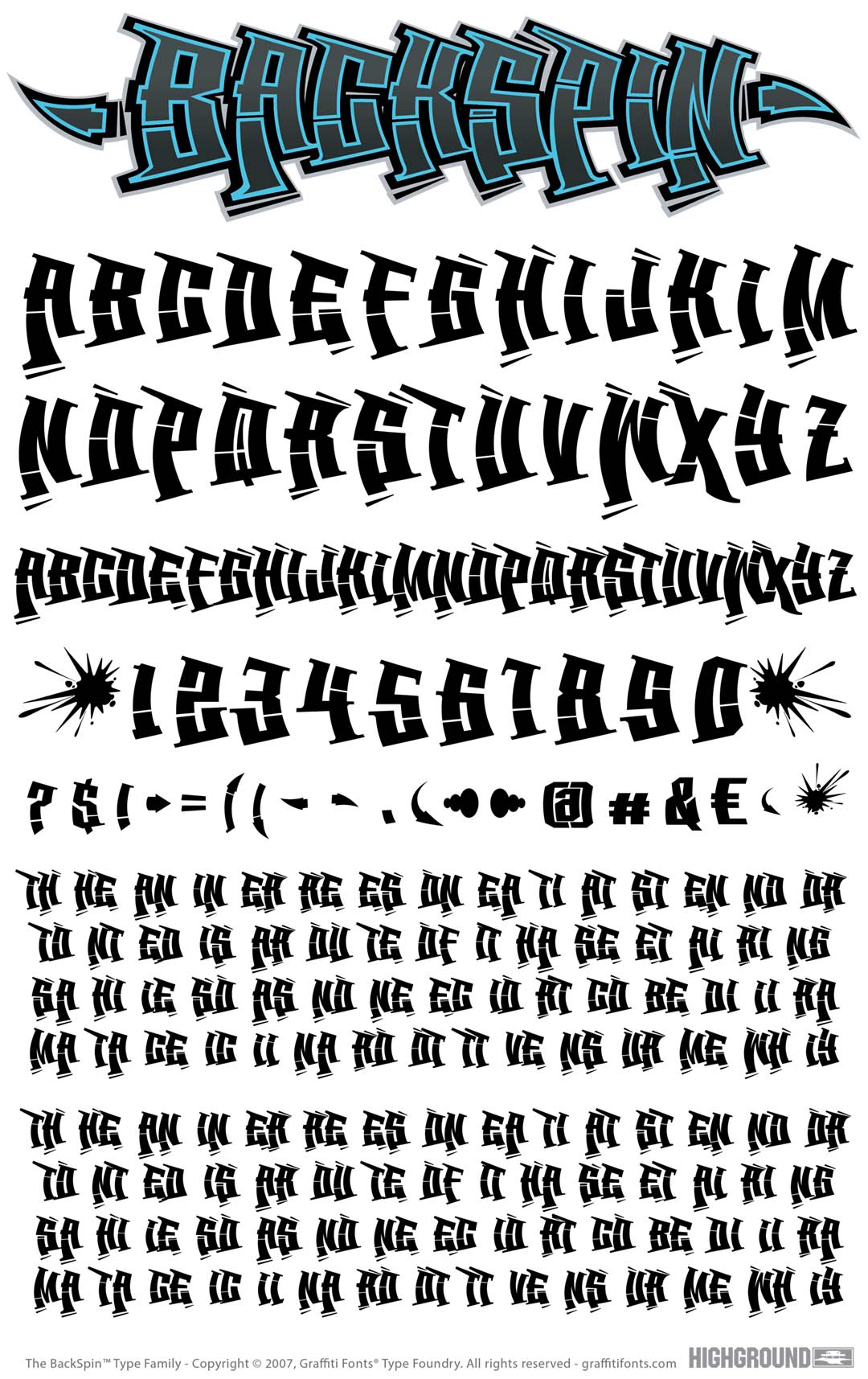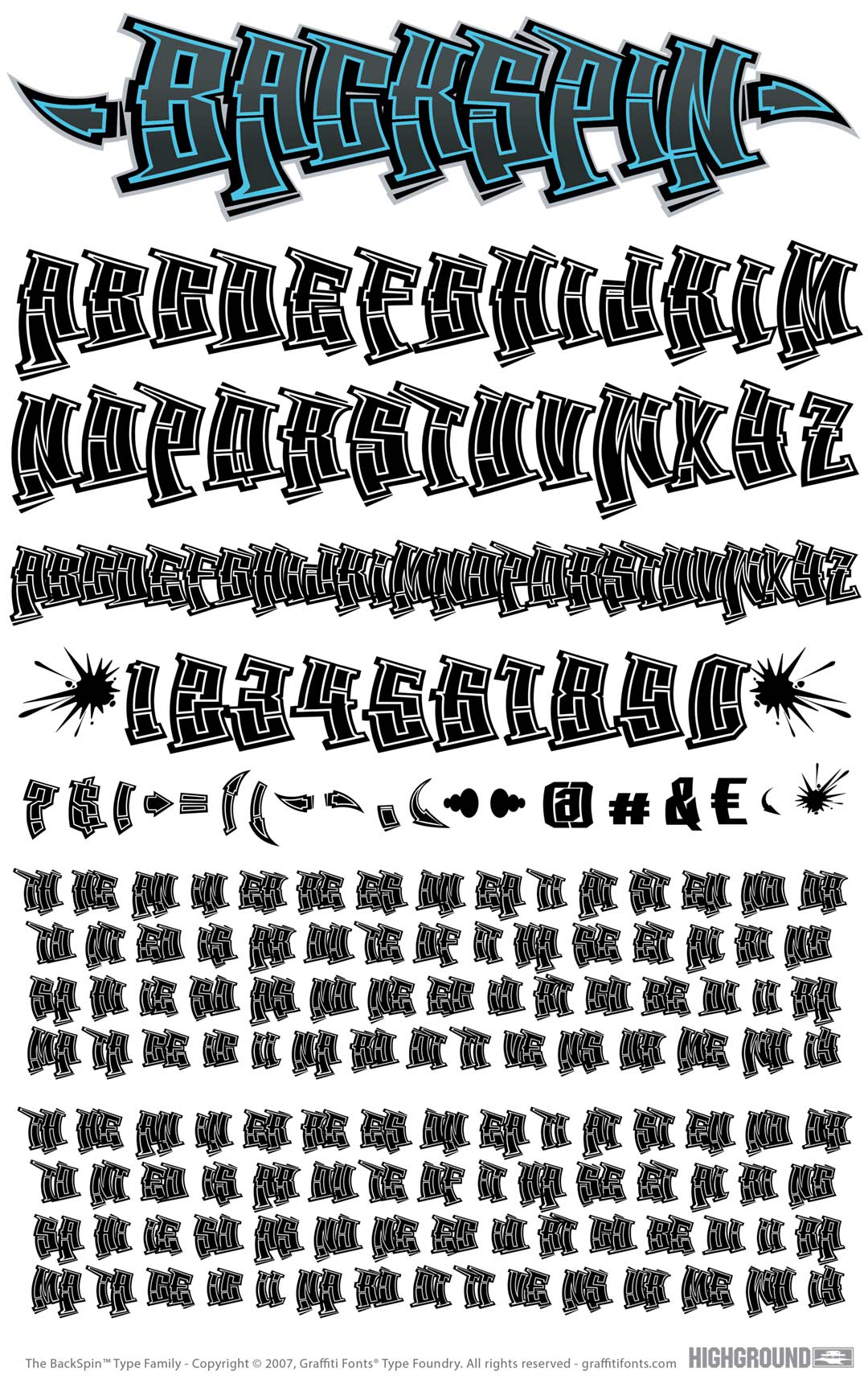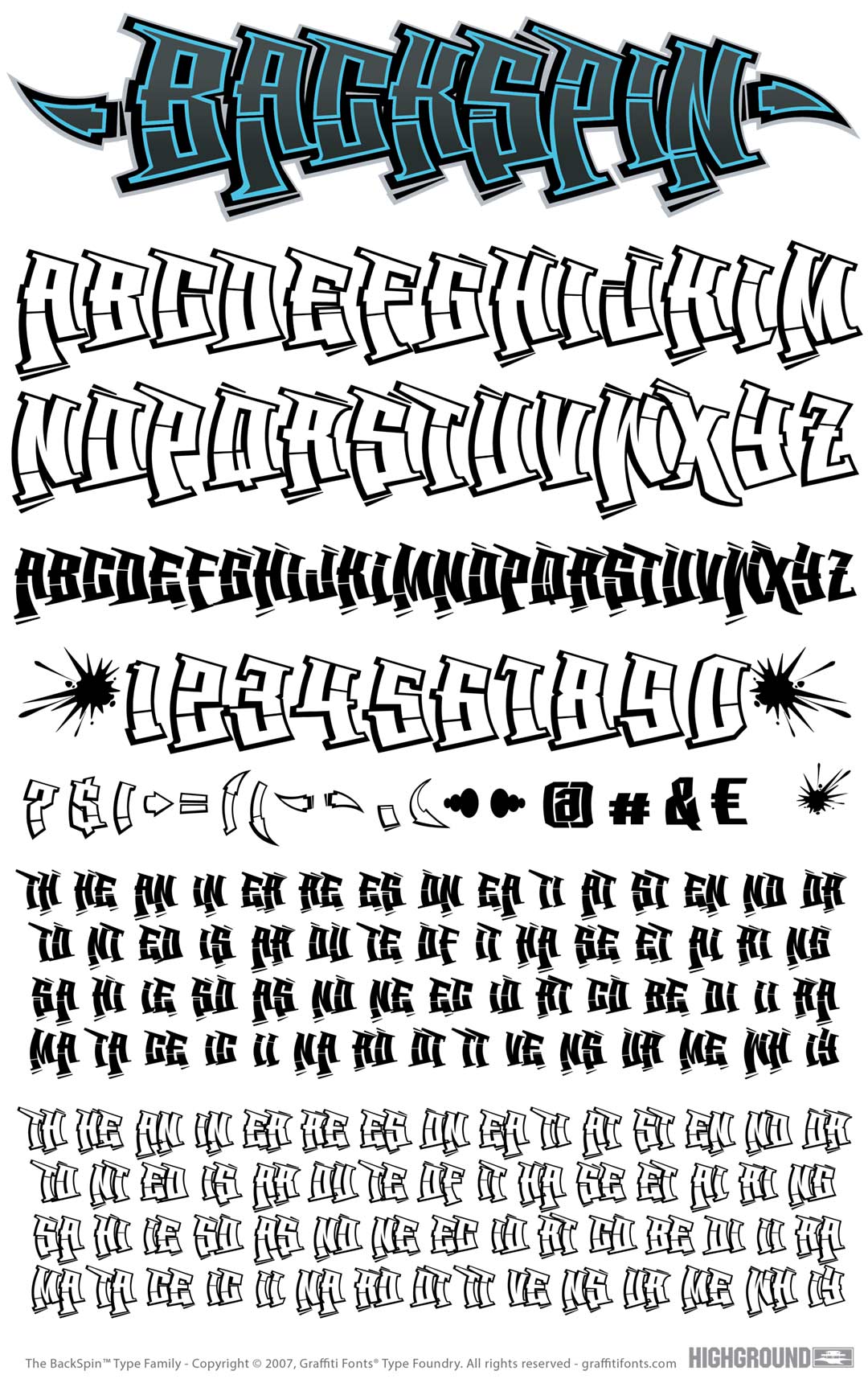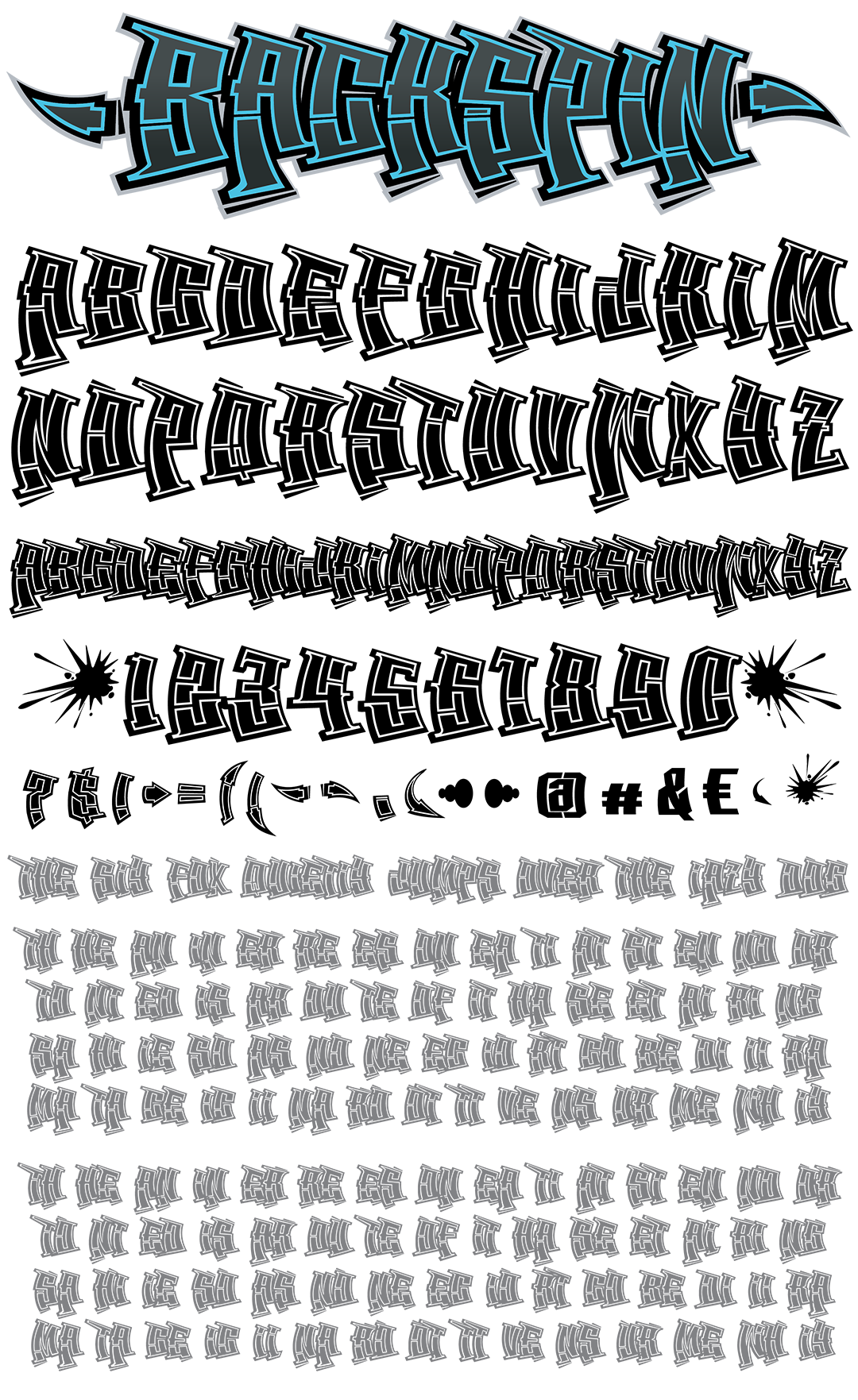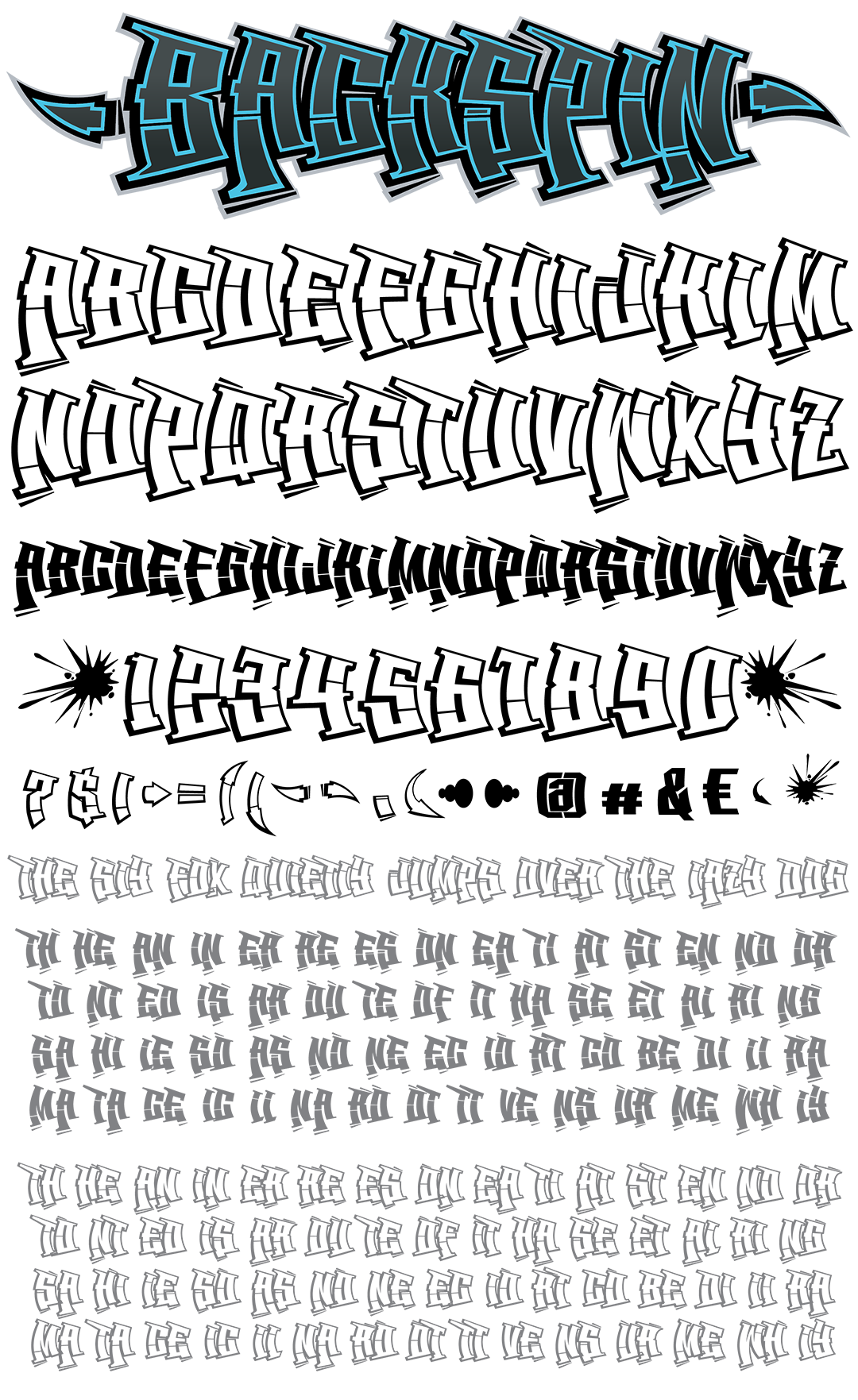
This 3 font set consists of blockbuster graffiti characters inspired by old school Hip-Hop fliers & breakdancing memorabilia. Included are bold solid fill styles as well as thick, offset outlines & a combo style with a "college" fill (inset fill). Each style includes full alphabets, numbers, symbols, punctuation as well as arrows end pieces, splatters & other artwork to embellish your text adding up to 96 characters in each style. Backspin has the distinction of being the first graffiti font created through the use of an algorithm. The family was developed in 2007 by putting the hand-drawn block letters through seven automated distortion & transformation steps based on some simple concepts common to graffiti lettering.